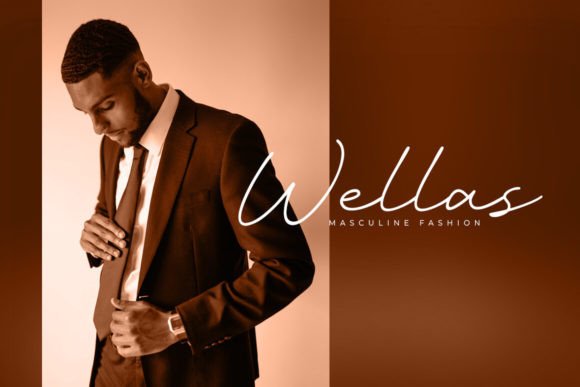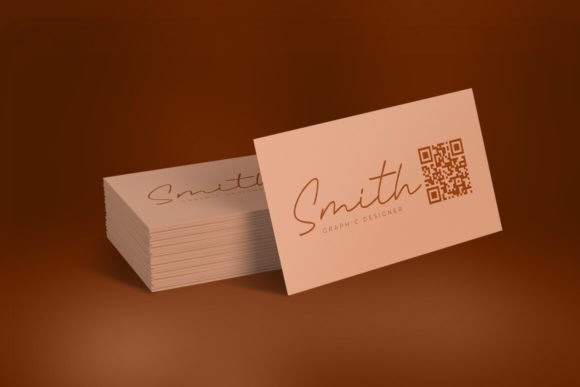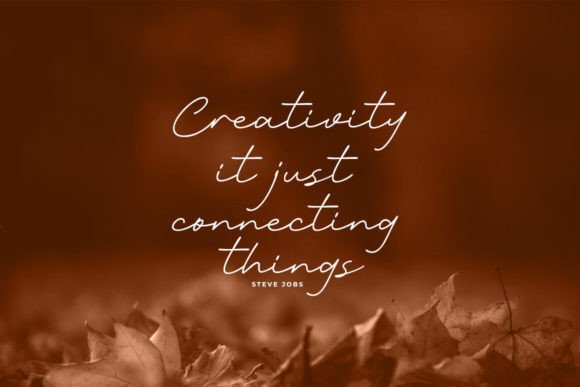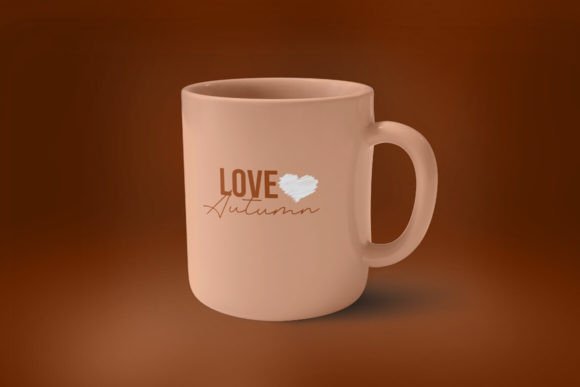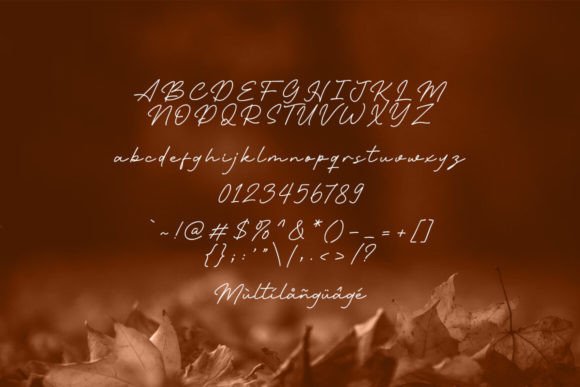
Introducing Autumn Wind Font: Elevate Your Designs with Elegance
Are you on the hunt for a font that embodies the essence of sophistication and modernity? Look no further than the Autumn Wind Font. This stunning script font is designed to bring a touch of elegance to a wide array of design projects, from captivating posters and logos to stylish magazines, book covers, and banners. With its clean lines, stylish aesthetic, and modern appeal, Autumn Wind is poised to become your go-to font for creating visually striking designs.
What Makes Autumn Wind Font Stand Out?
Autumn Wind Font is not just another script font; it’s a versatile design tool that can elevate your creative projects to new heights. Here are some key features that make it a standout choice:
- Clean and Stylish: The font boasts a clean and stylish appearance, making it perfect for designs that demand a touch of sophistication.
- Modern and Elegant: Its modern aesthetic ensures that your designs feel contemporary and on-trend, while its elegant curves add a layer of refinement.
- Highly Versatile: Whether you’re working on posters, logos, magazines, book covers, or banners, Autumn Wind Font can be easily adapted to suit a wide range of projects.
Why Choose Autumn Wind Font?
Choosing the right font for your design project can be a daunting task, but here are several compelling reasons why Autumn Wind Font should be at the top of your list:
- Perfect for a Wide Range of Projects: From creative crafts to professional design projects, Autumn Wind Font can add a touch of elegance and sophistication.
- Easily Matches with Various Themes: Its versatile nature means it can be paired with an incredibly large set of projects, ensuring that it complements your design ideas perfectly.
- Enhances Creativity: With Autumn Wind Font, you can bring your creative ideas to life and make them stand out in a crowded design landscape.
- Pair with Complementary Fonts: For maximum impact, consider pairing Autumn Wind Font with complementary fonts that enhance its elegant and modern appeal.
- Play with Sizes and Styles: Take advantage of the font’s versatility by playing with different sizes and styles to create visual hierarchy and emphasis.